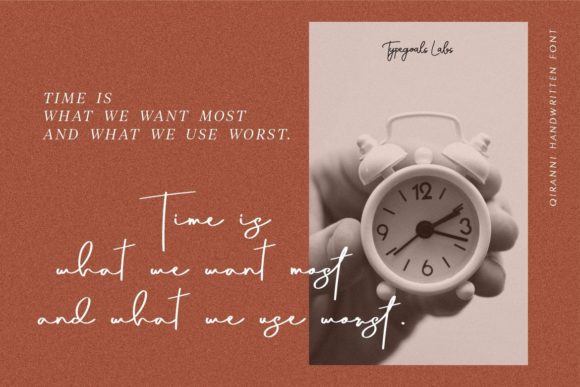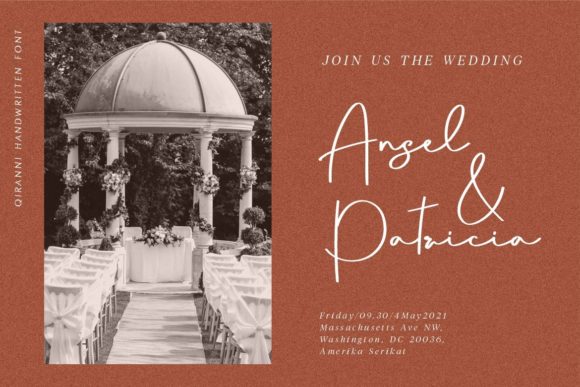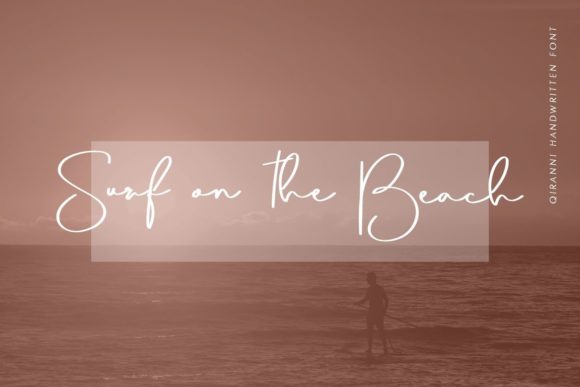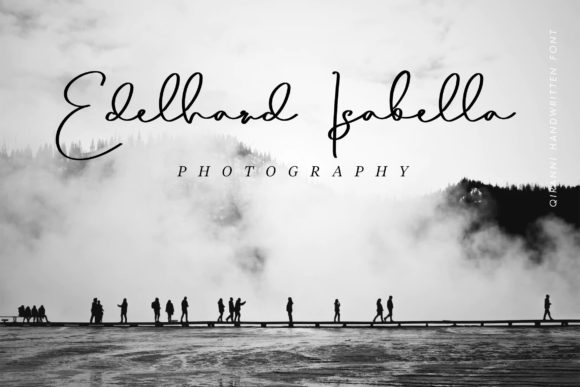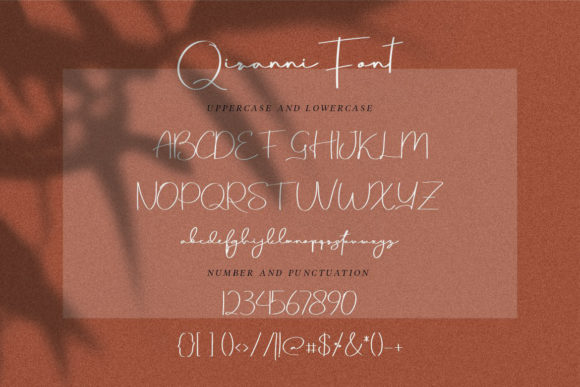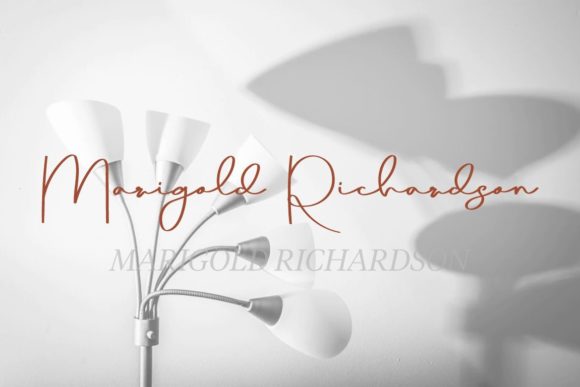
Introduction to Qiranni Font
Qiranni is a delicate, elegant, and flowing handwritten font.
It has beautiful and well-balanced characters that can elevate the look of a wide range of projects, from product packaging to business cards and more .
Key Features of Qiranni Font